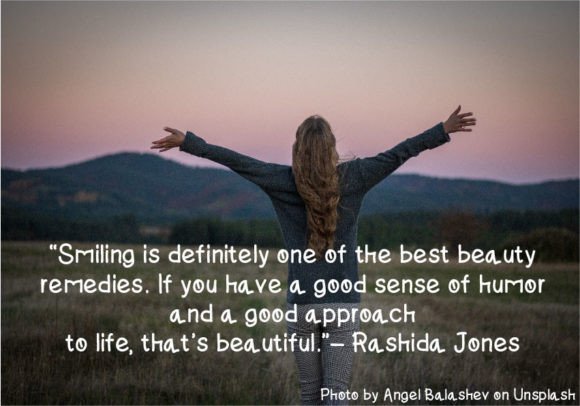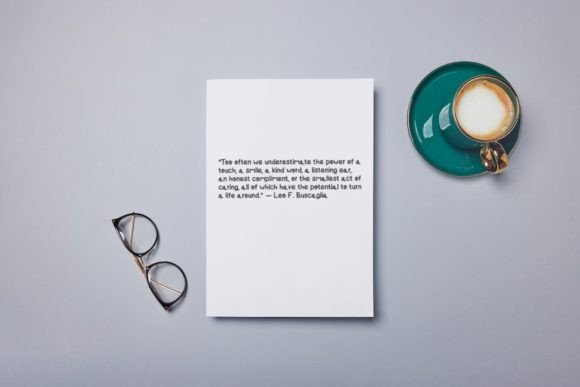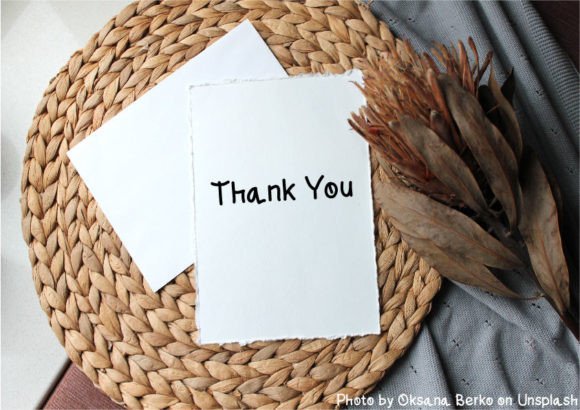
Introduction to Mboeleteq Font
MBOELETEQ is a modern handwriting script font, featuring a monoline.
Add this unique script font to your library and see how each creative idea will stand out .
Key Features of Mboeleteq Font
Why Choose Mboeleteq Font?
Mboeleteq Font offers exceptional quality and versatility, making it a valuable addition to your design toolkit. Whether you’re creating for personal projects or commercial use, Mboeleteq Font delivers professional results.